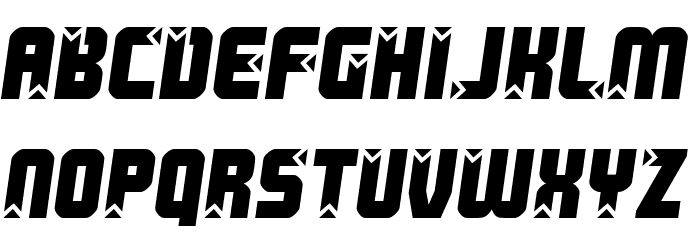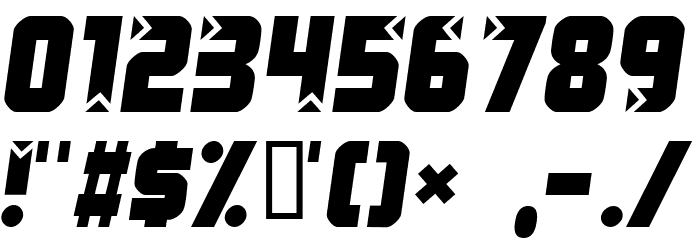
Killer boots Font
This font features a bold, angular design with a futuristic and edgy aesthetic. The characters are uniquely styled with sharp, geometric cuts and angles, giving them a dynamic and aggressive appearance. The uppercase and lowercase letters maintain a consistent style, with a strong emphasis on diagonal lines and pointed edges. The numbers and special characters follow the same design principles, ensuring a cohesive look across all glyphs. This font's distinct style makes it ideal for projects that require a modern and impactful visual presence.
A bold, angular font with a futuristic and edgy design.
- Font: Killer boots
- Proposed Projects: Ideal for branding, posters, video game graphics, and sci-fi themed projects.